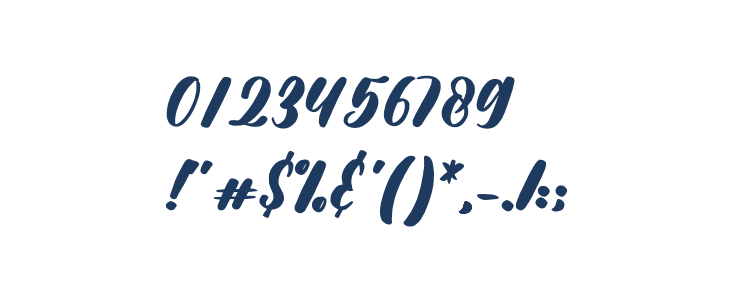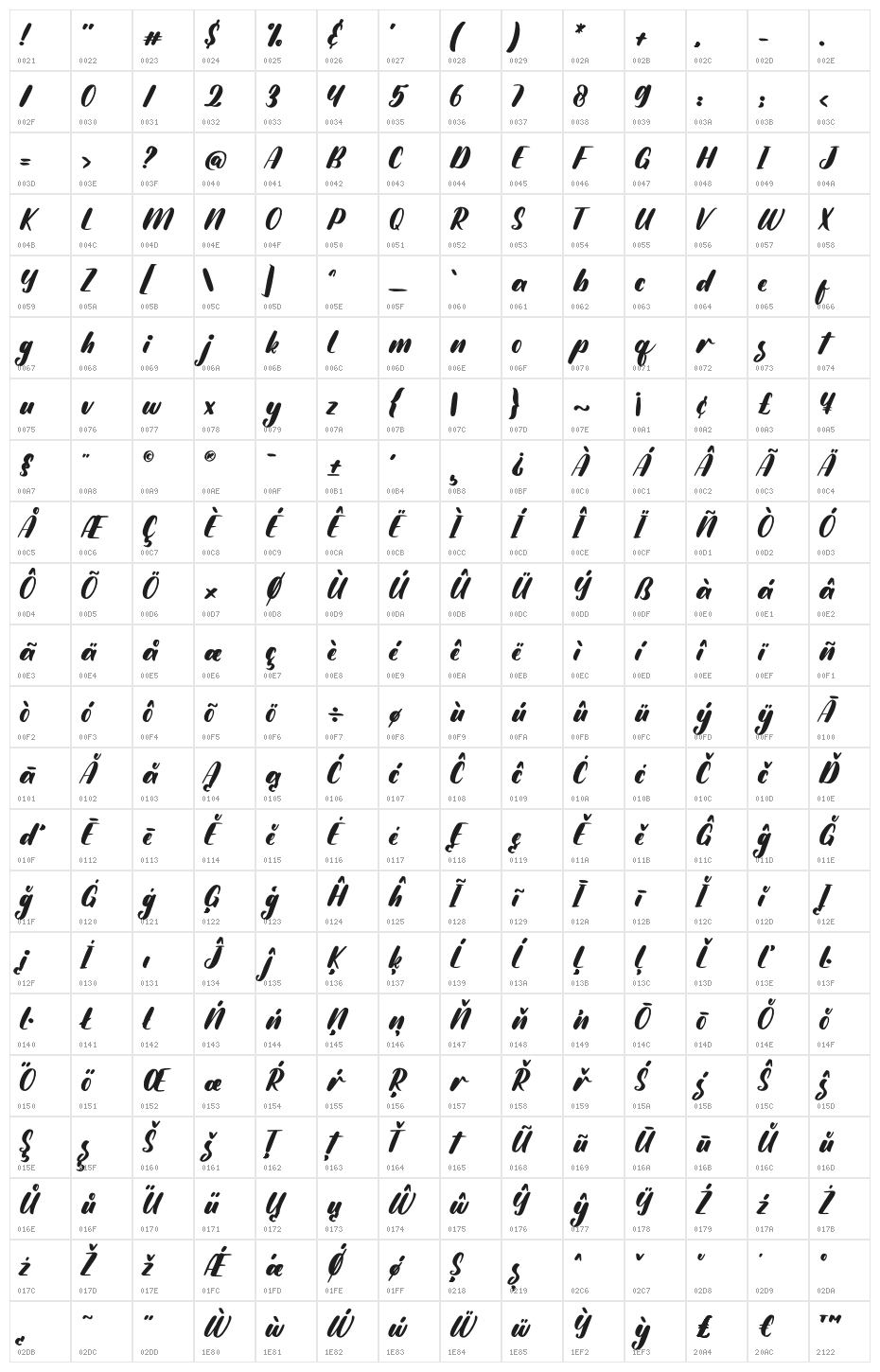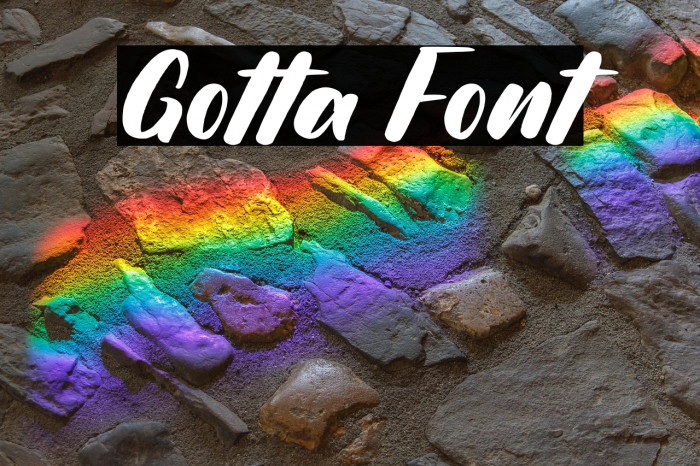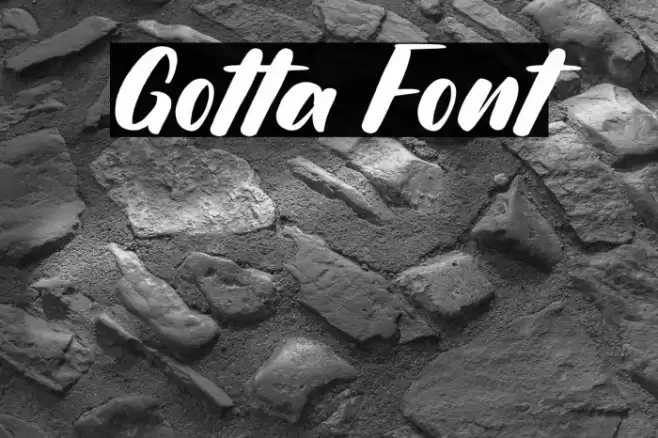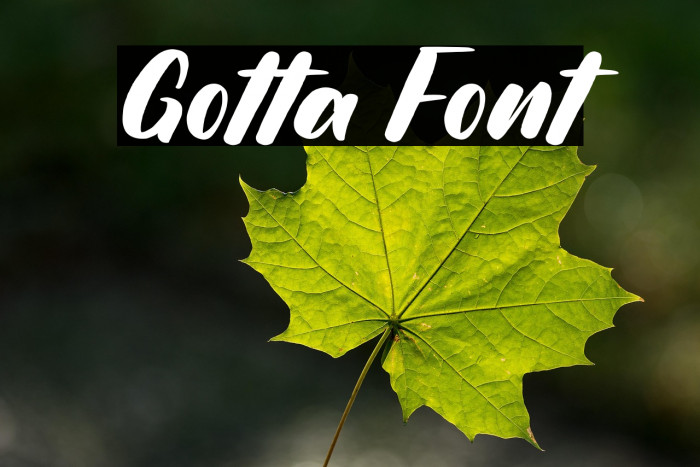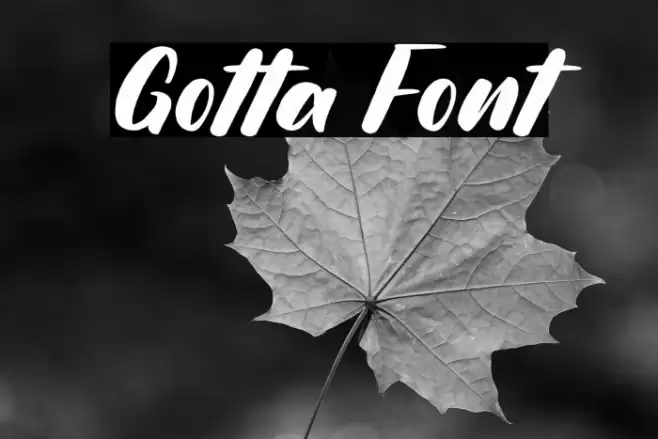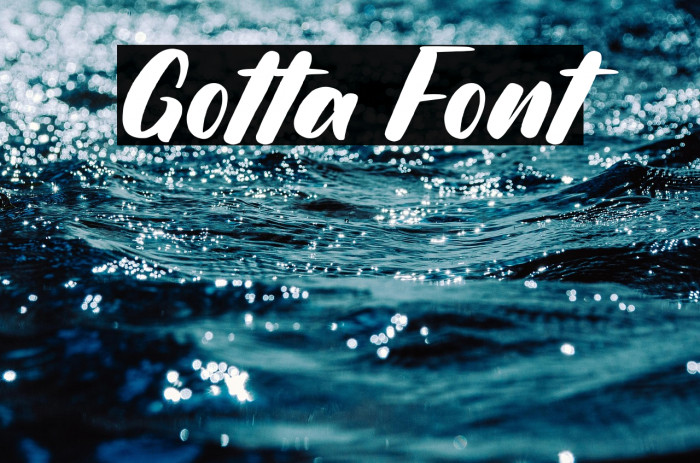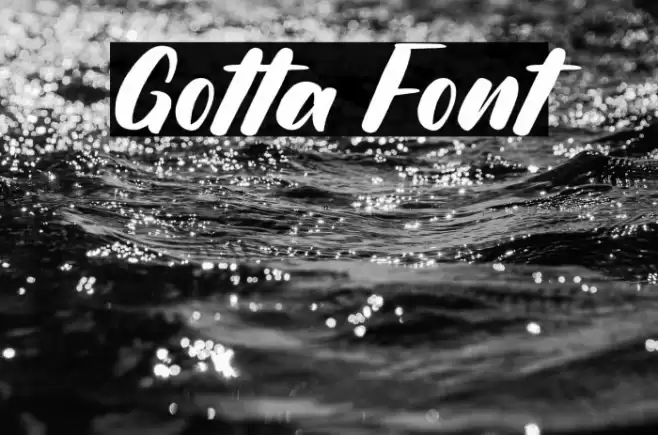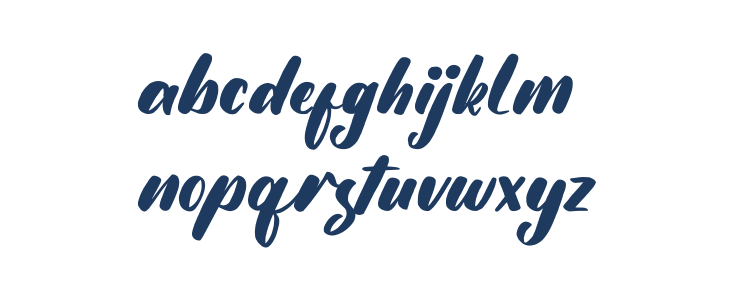
Gotta Font
Gotta Description
This font features a bold, flowing script style that exudes elegance and dynamism. The characters are interconnected with smooth, sweeping strokes, creating a sense of movement and fluidity. The uppercase letters are particularly striking, with dramatic flourishes that add a touch of sophistication. The lowercase letters maintain a consistent style, complementing the uppercase with their rounded forms and gentle curves. The numerals are equally stylish, maintaining the font's overall aesthetic with their bold and expressive design. Special characters are well-integrated, ensuring versatility for various design needs. This font's high contrast and bold weight make it ideal for impactful and eye-catching designs.
| Overall Style | Elegant, Dynamic |
| Proposed Projects | Ideal for wedding invitations, branding, logo design, and elegant packaging. |